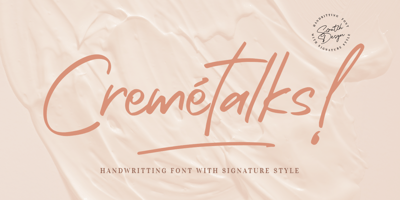
Cremetalks Font Family was designed by Gitayogi Irhandi and published by Scratch Design. Cremetalks contains 1 styles and family package options. Introducing Cremétalks Signature! It’s an authentic handwriting font with a signature style look. It’s highly recommended for you who want to make some designs with a natural signature style. This font will work for invitation design, logos, autograph, wedding design, poster, packaging, book cover title, quote, social media post, etc. You just only open your Opentype features at photoshop or adobe illustrator while using the script font to use the ligatures and swashes. As you type, your text will look like a natural signature or handwriting. So, enjoy it…